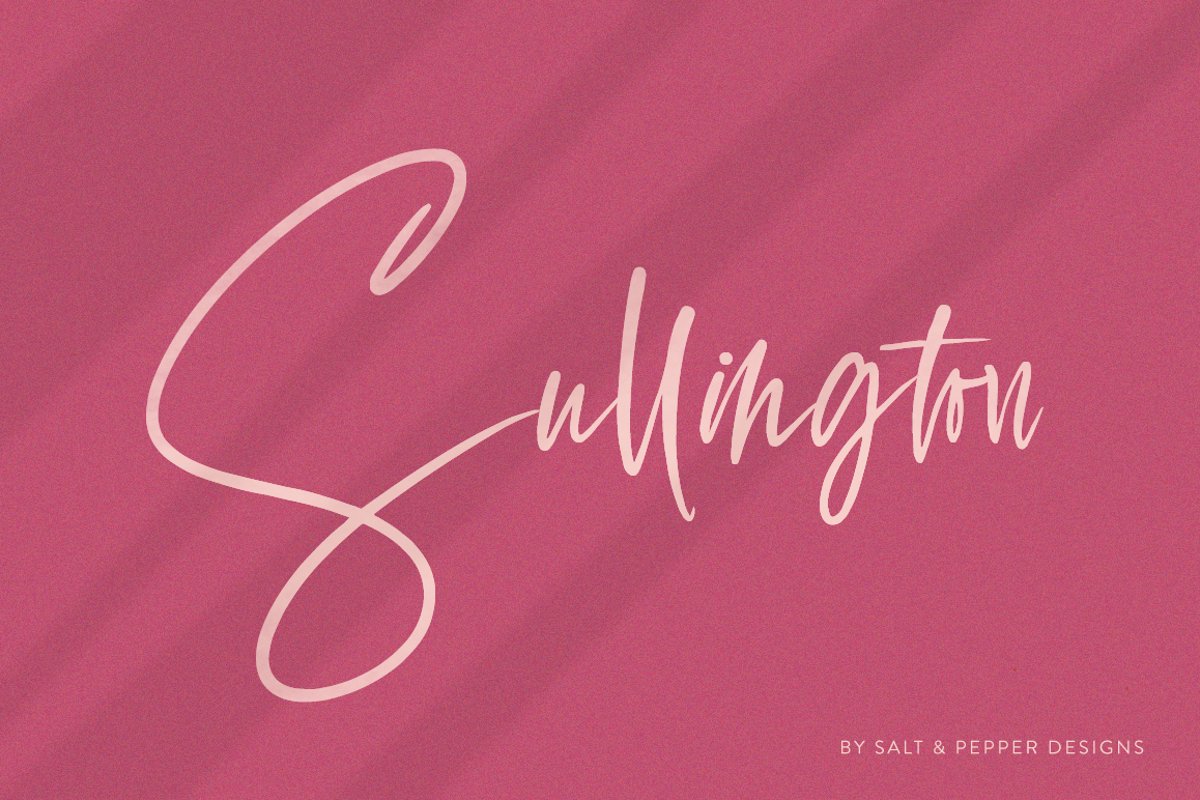
Sullington Script is a gorgeous new script font that includes a wonderful array of characters and some seriously stylish ligatures! Make sure you grab this beauty now and use it in your new work and don't forget that this stunner pairs well with serifs too!